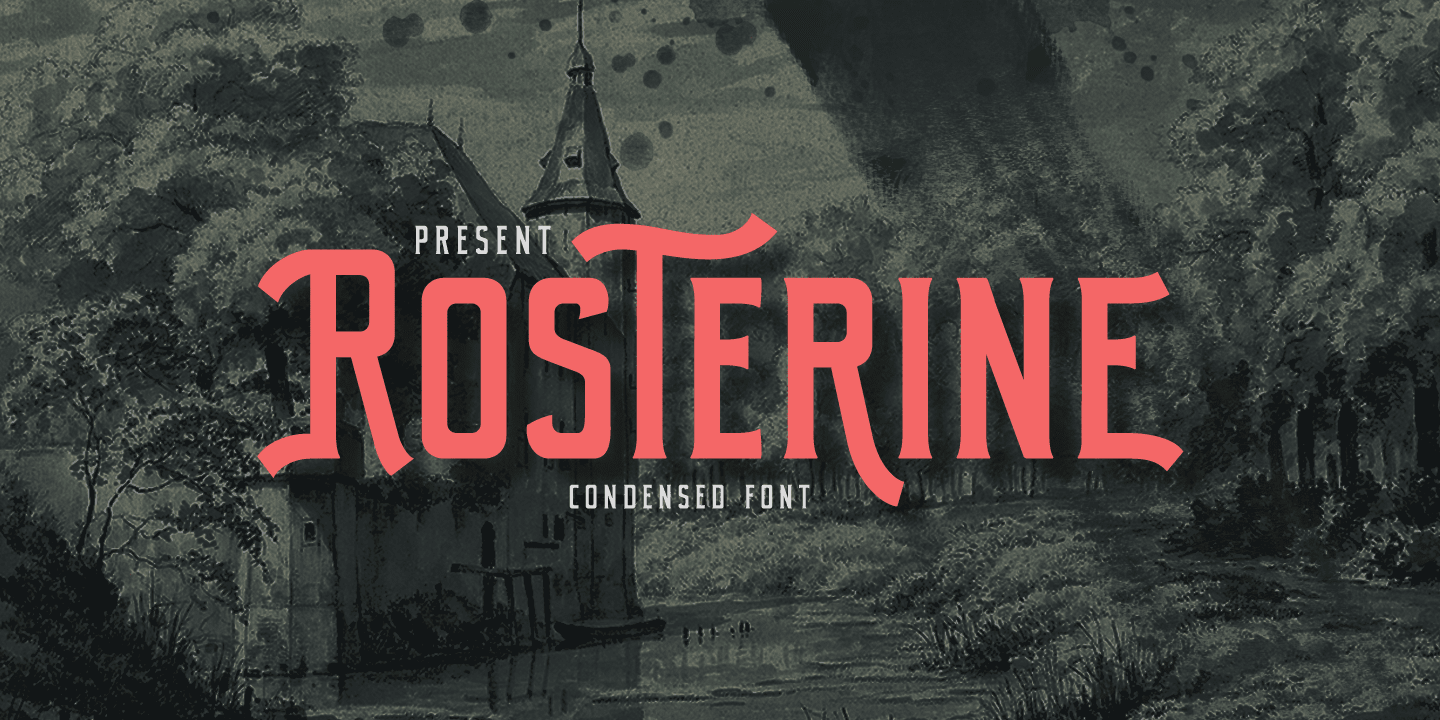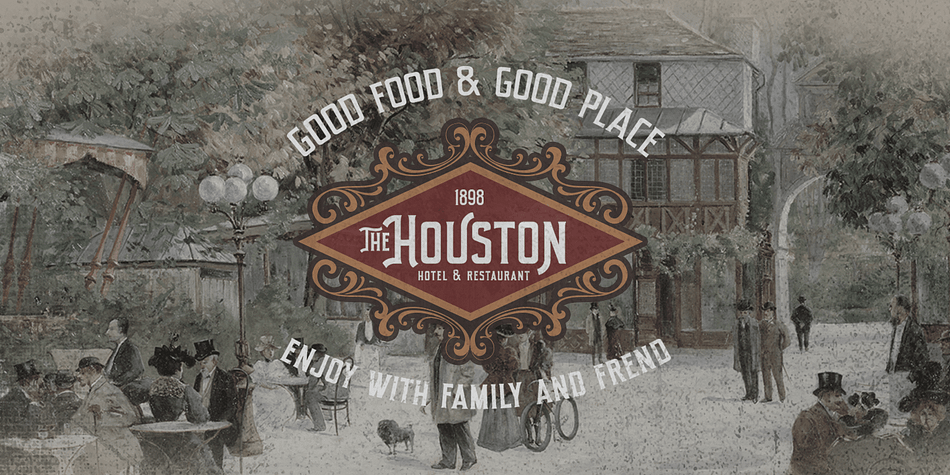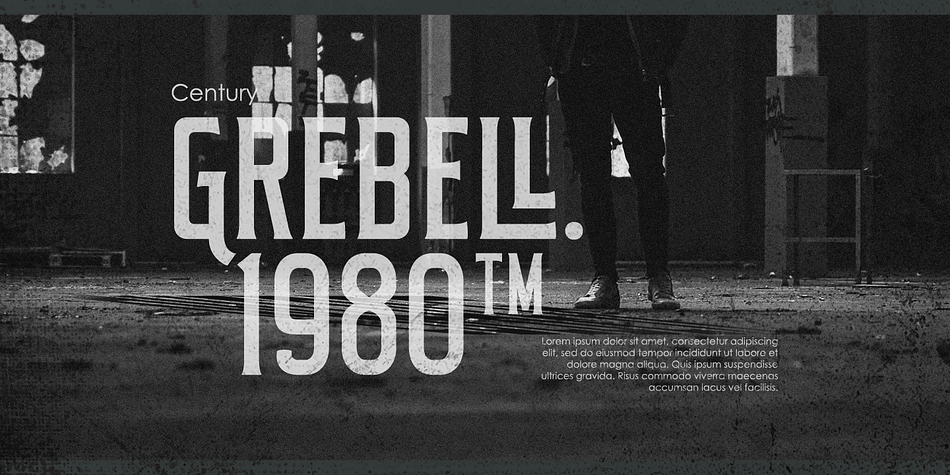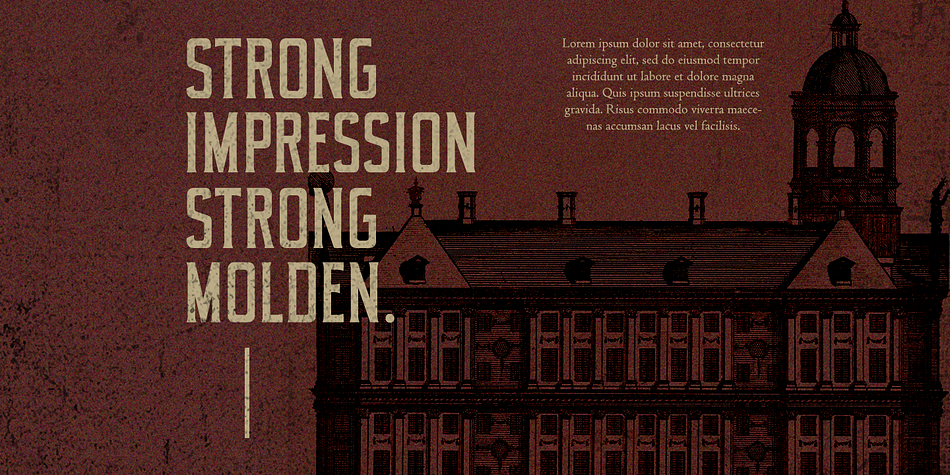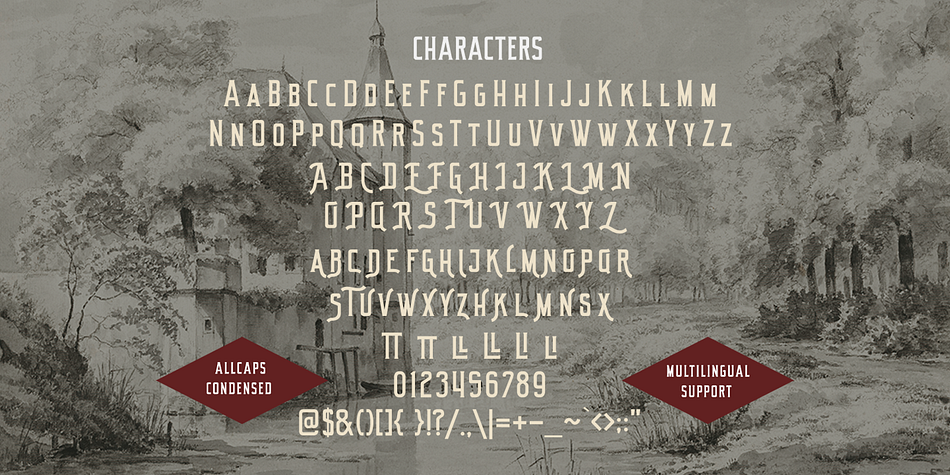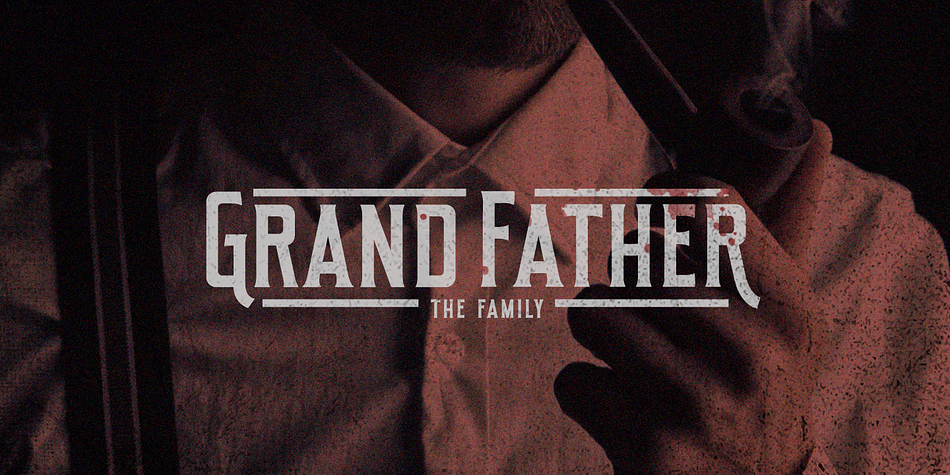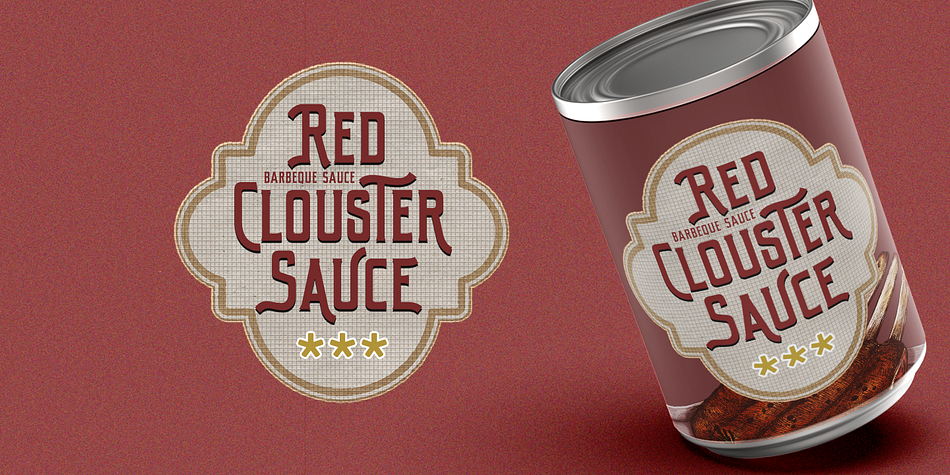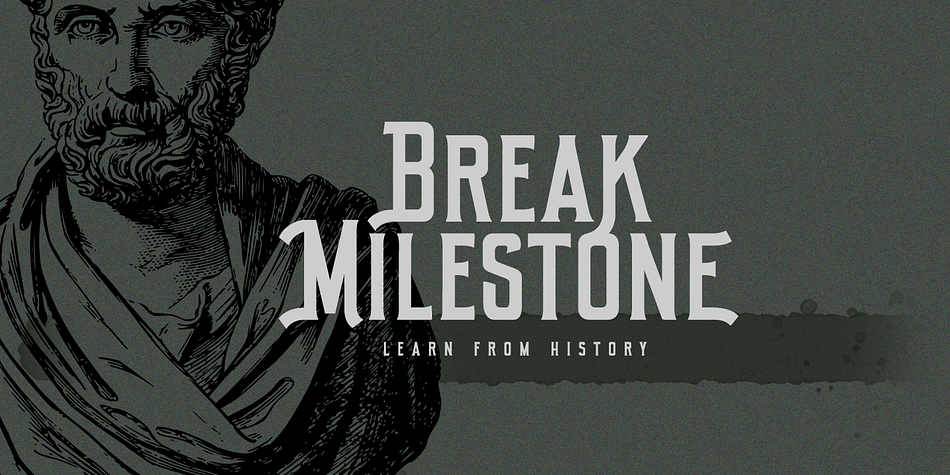
Rosterine
Designed by Hendry Juanda, Rosterine is a display and display serif font published by Letterhend Studio.
Rosterine is a condensed display typeface with the touch of nostalgic and vintage feel . This typeface has unique looks and strong characters. This font perfectly made to be applied especially in logo, and the other various formal forms such as invitations, labels, magazines, books, greeting / wedding cards, packaging, fashion, make up, stationery, novels, labels or any type of advertising purpose.
- Uppercase & lowercase (alternates)
- Stylistic alternates
Styles Display, Display Serif